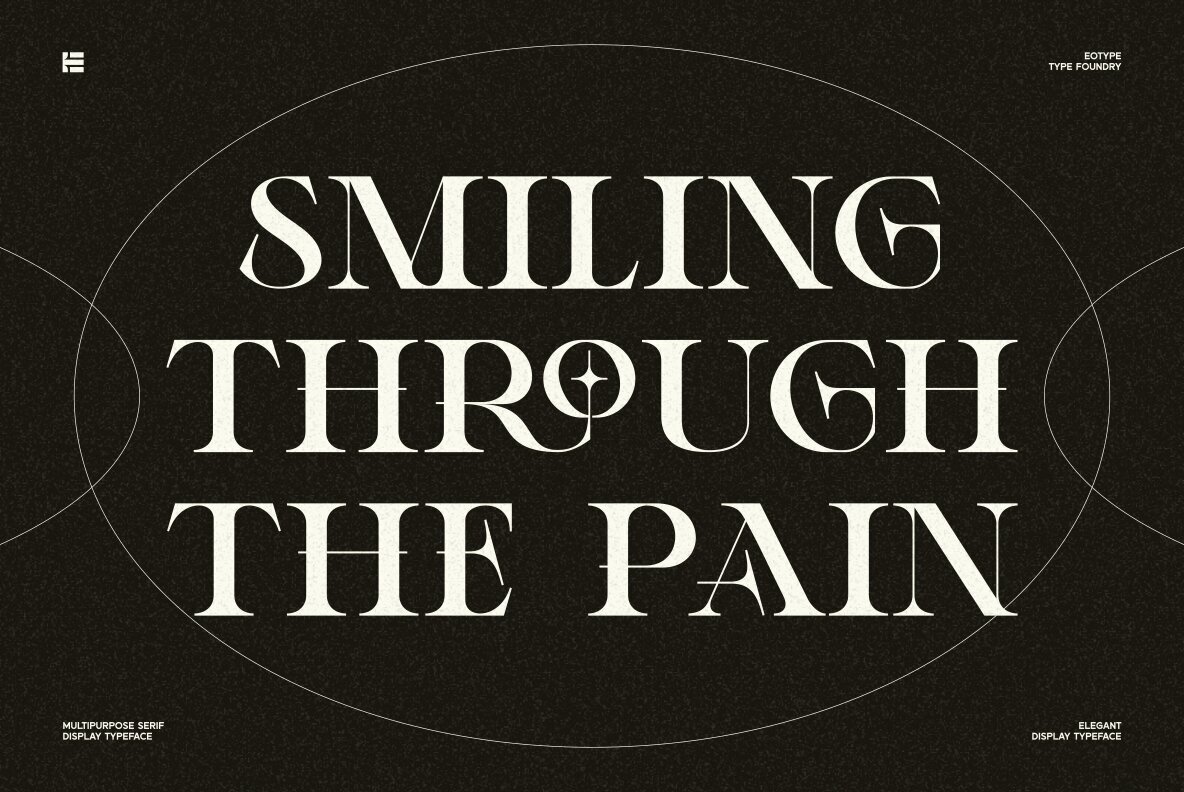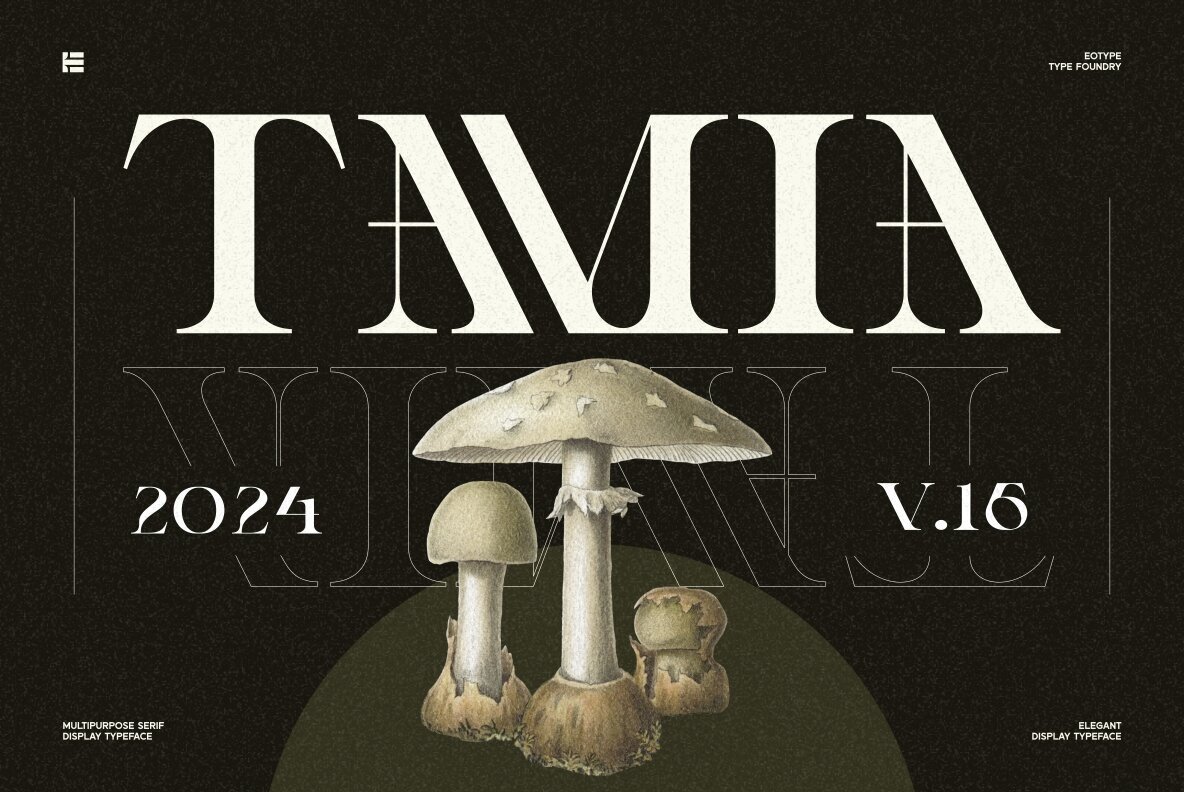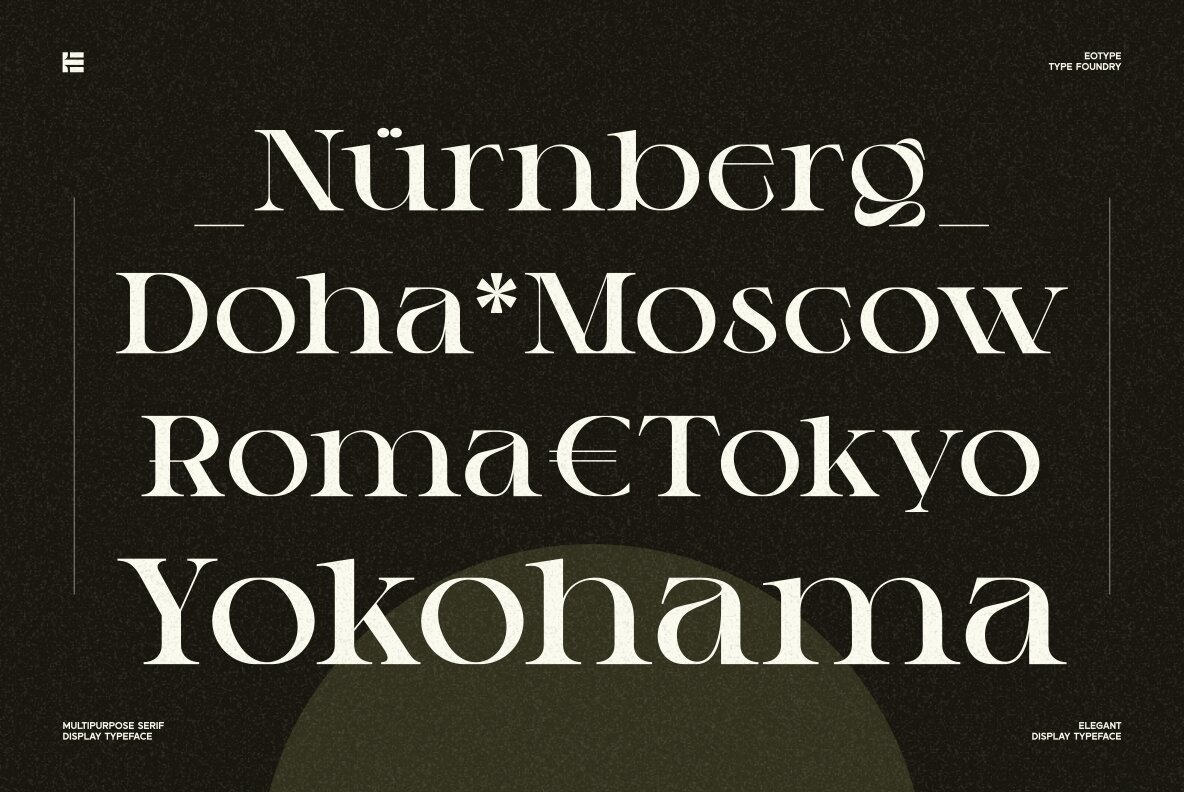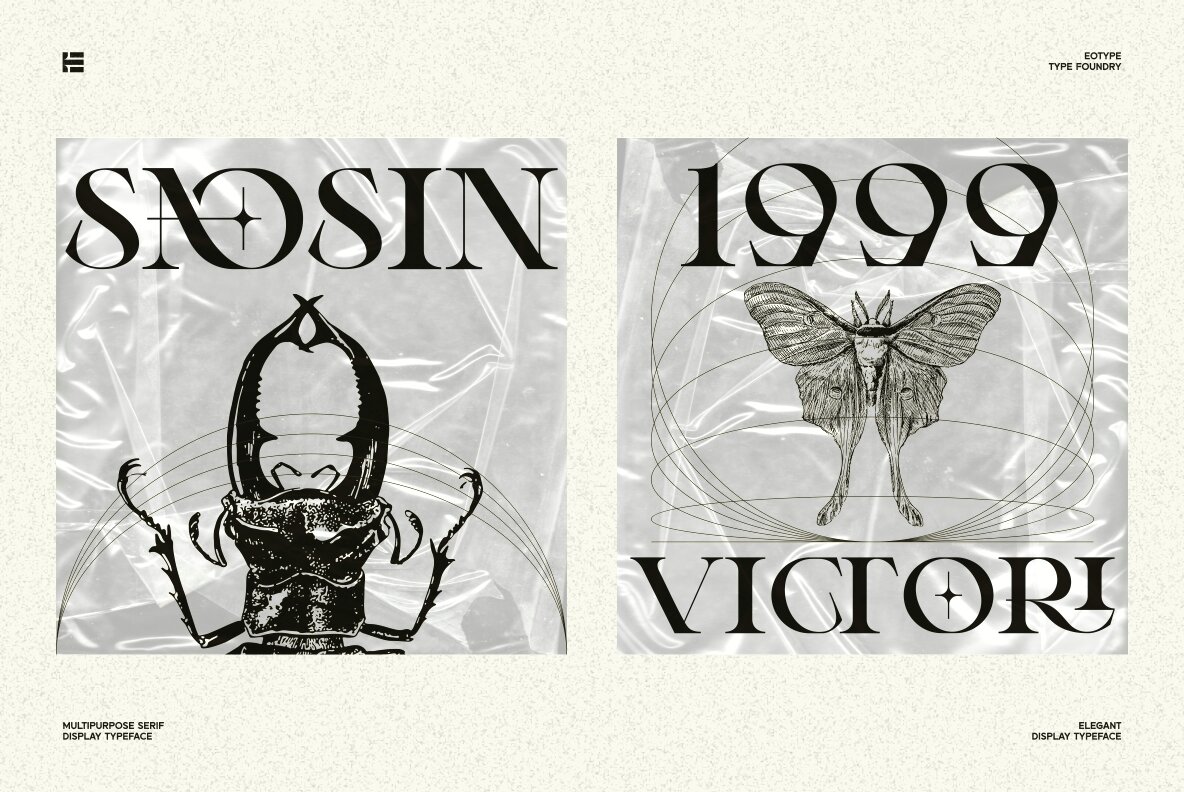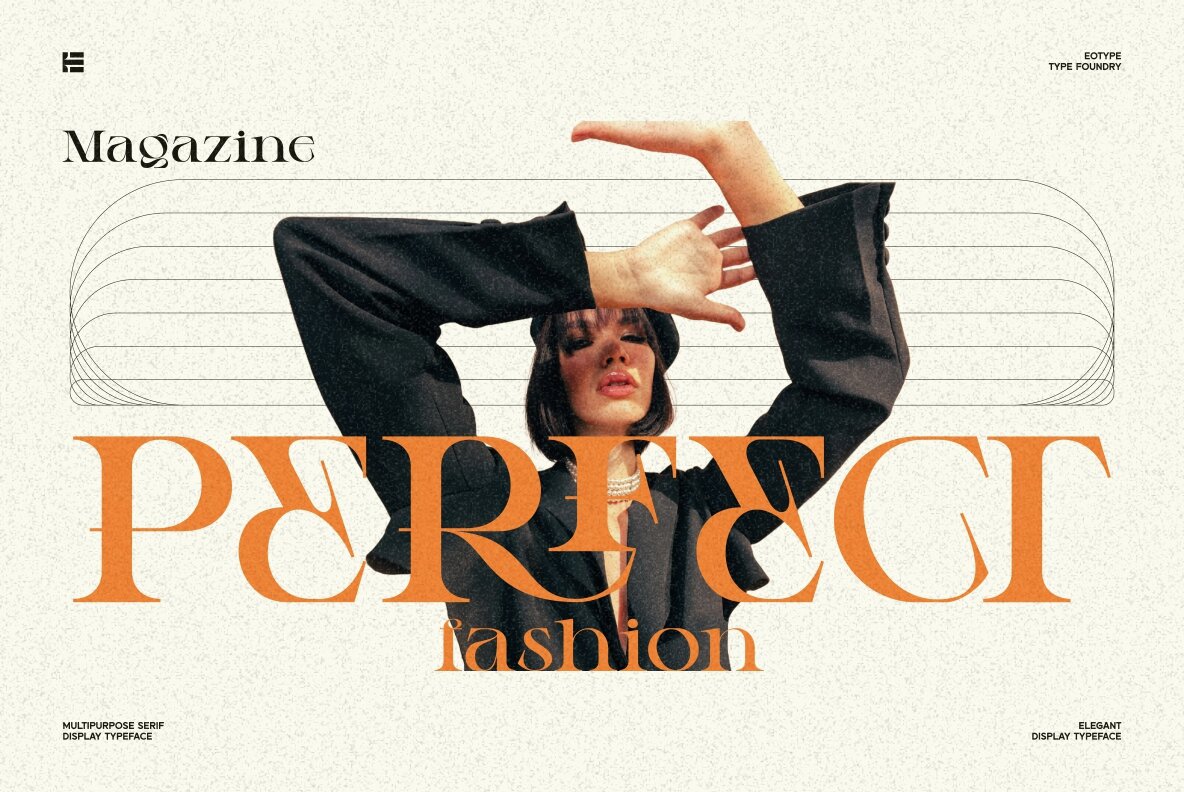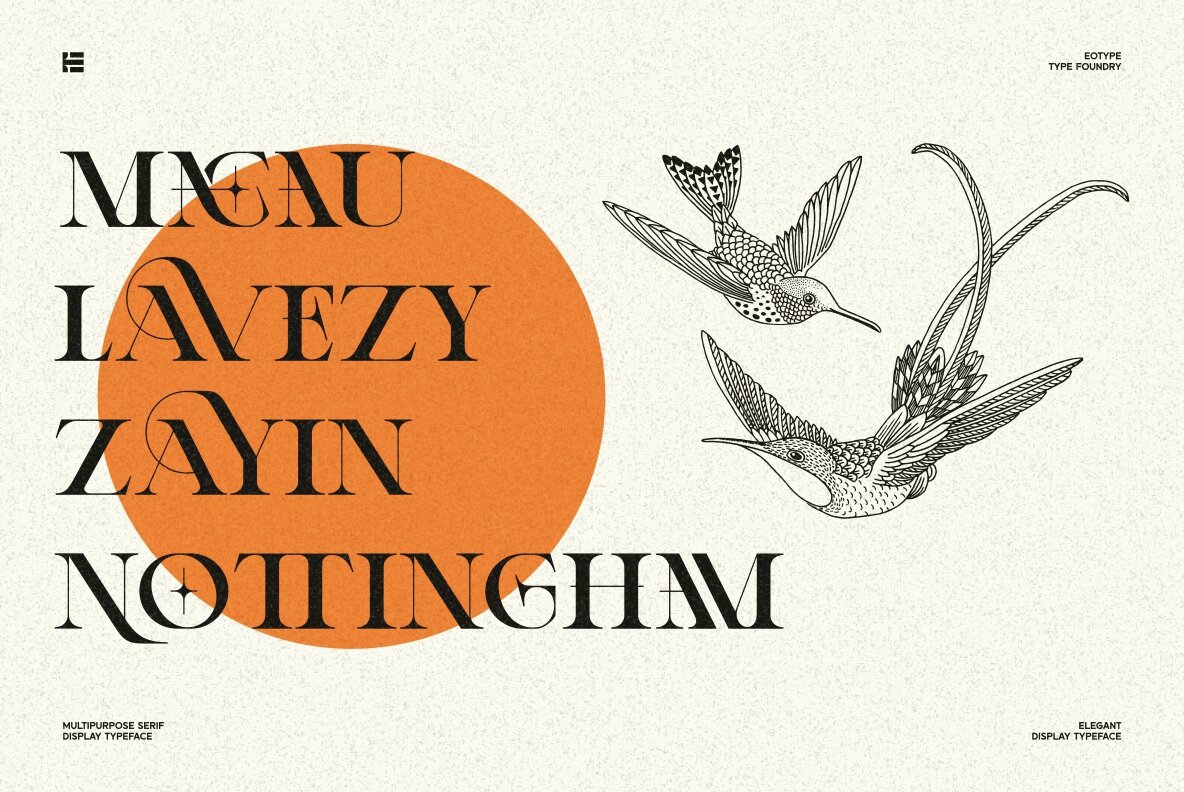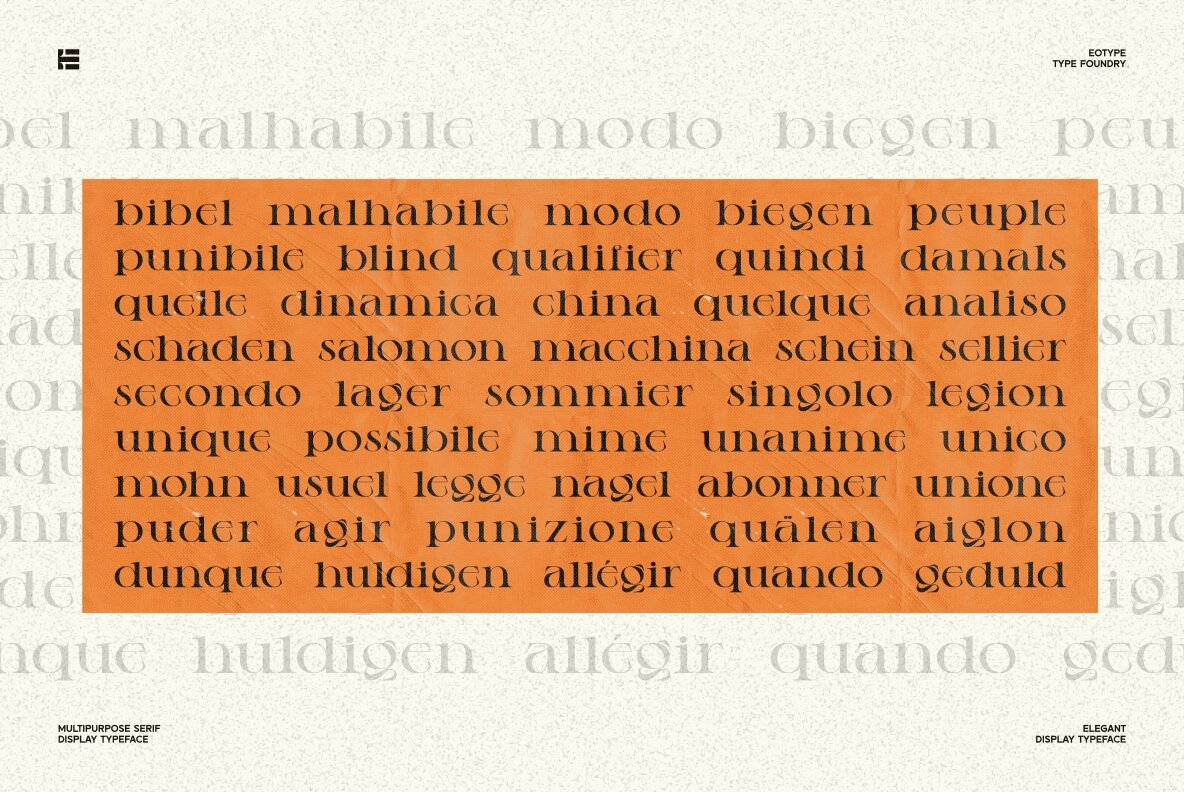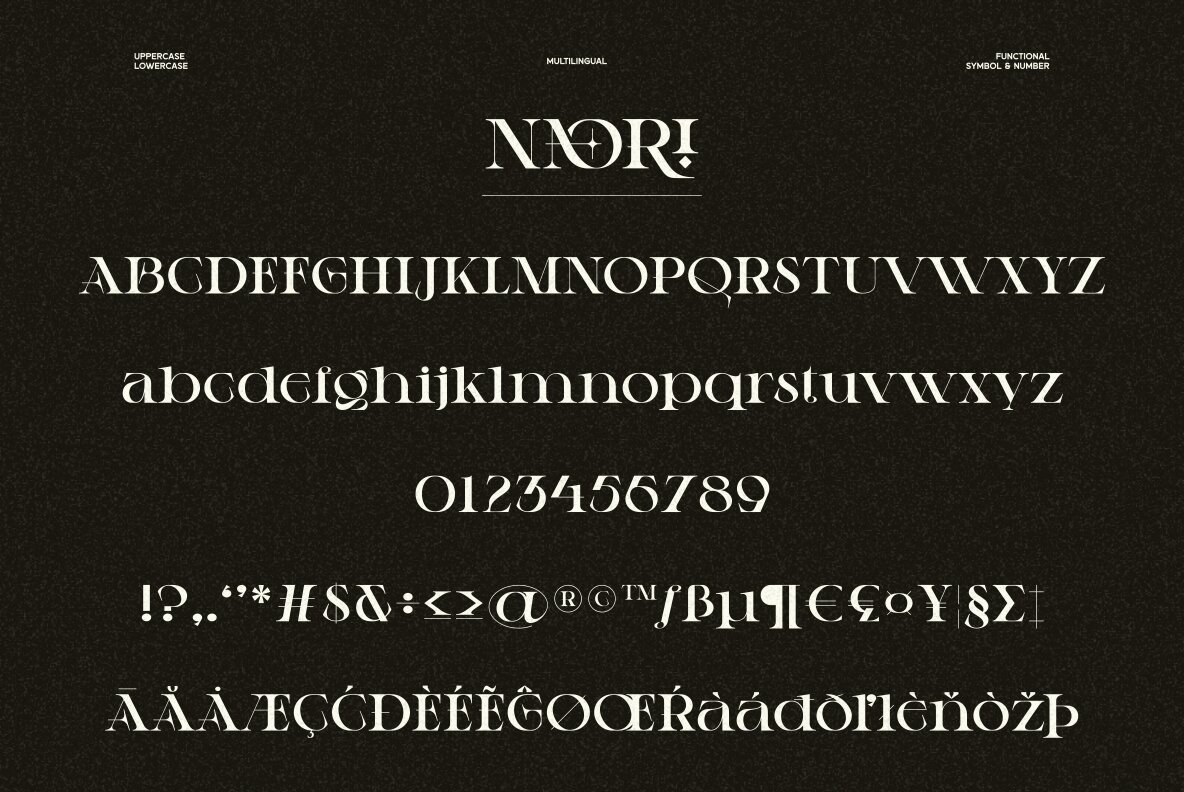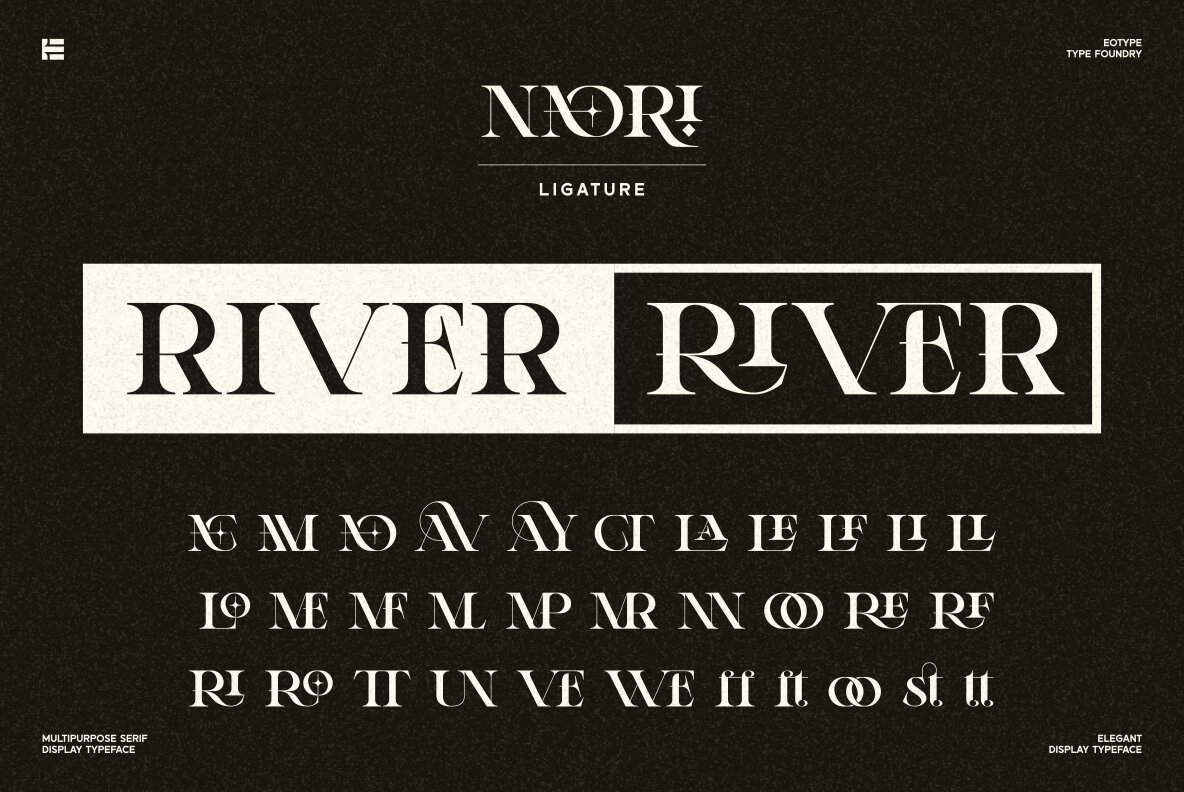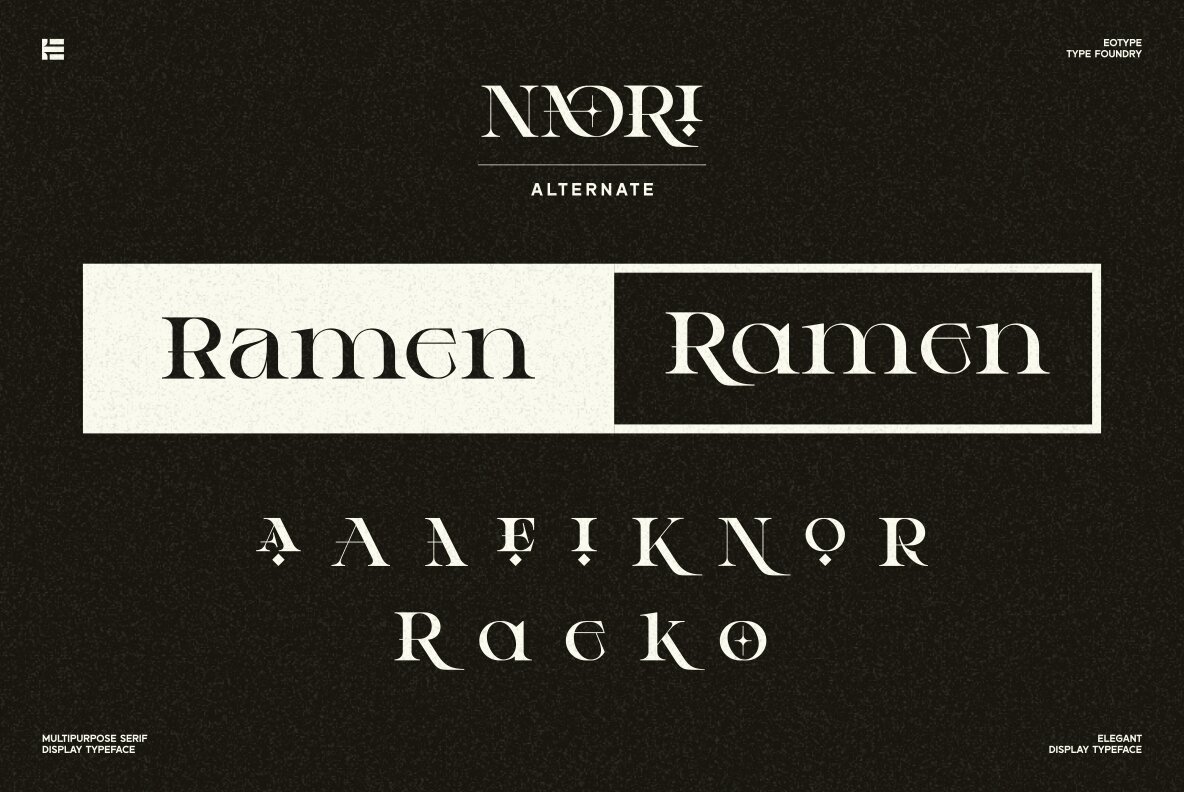
Naori Font
Naori Regular
Naori is a stylish serif font characterized by contrast between thick and thin lines. This font has a serif style that features a modern-classic blend design. This font has alternate and ligature features that give you access to a unique collection of letters.